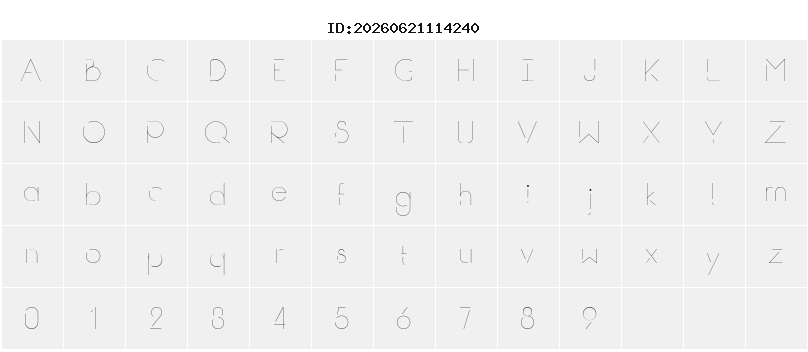
Break Preview
• Font Name: Break
• Font Style: ExtraLight
• Font ID: RajeshRajput: Break ExtraLight: 2015
• Full Font Name: Break ExtraLight
• PostScript Name: Break-ExtraLight
• Character Count: 103
• Designer: Rajesh Rajput
• Manufacturer: Rajesh Rajput
About Break.ttf
Break.ttf is a modern, elegant sans-serif font designed for ultimate readability and visual harmony. Perfect for branding, headlines, web design, and print materials.